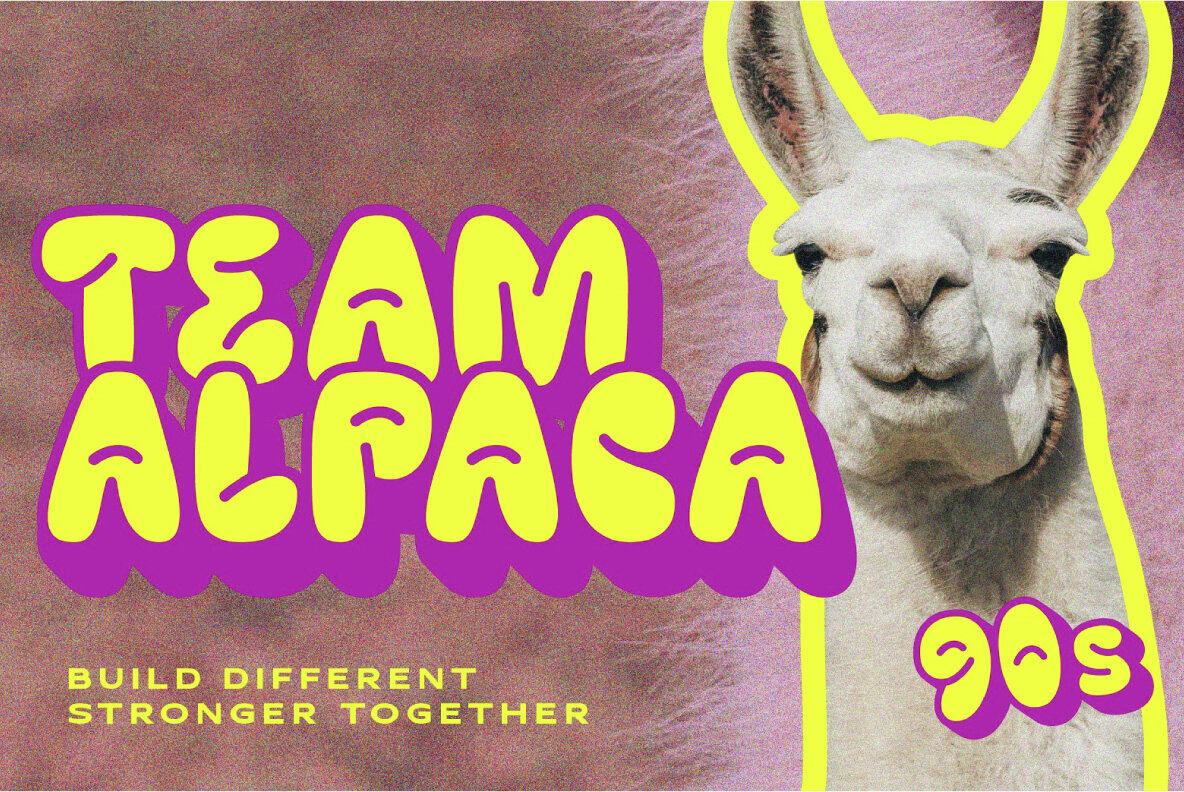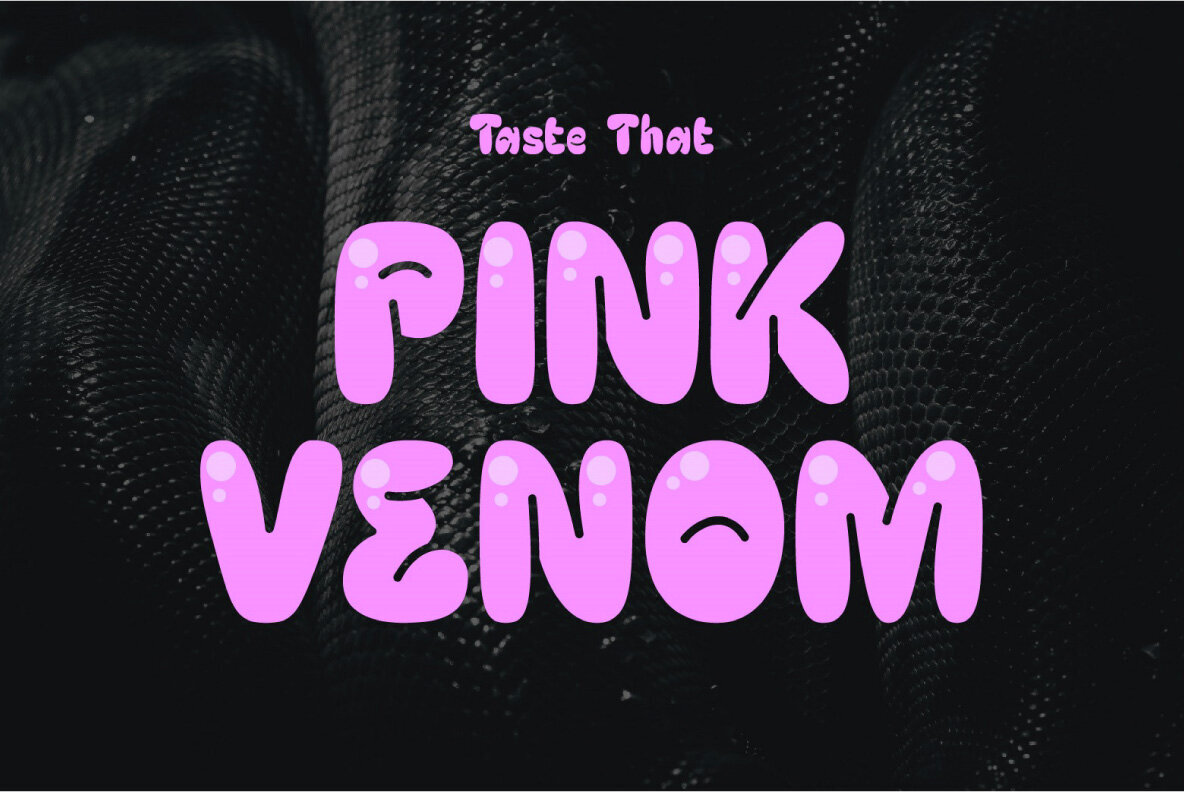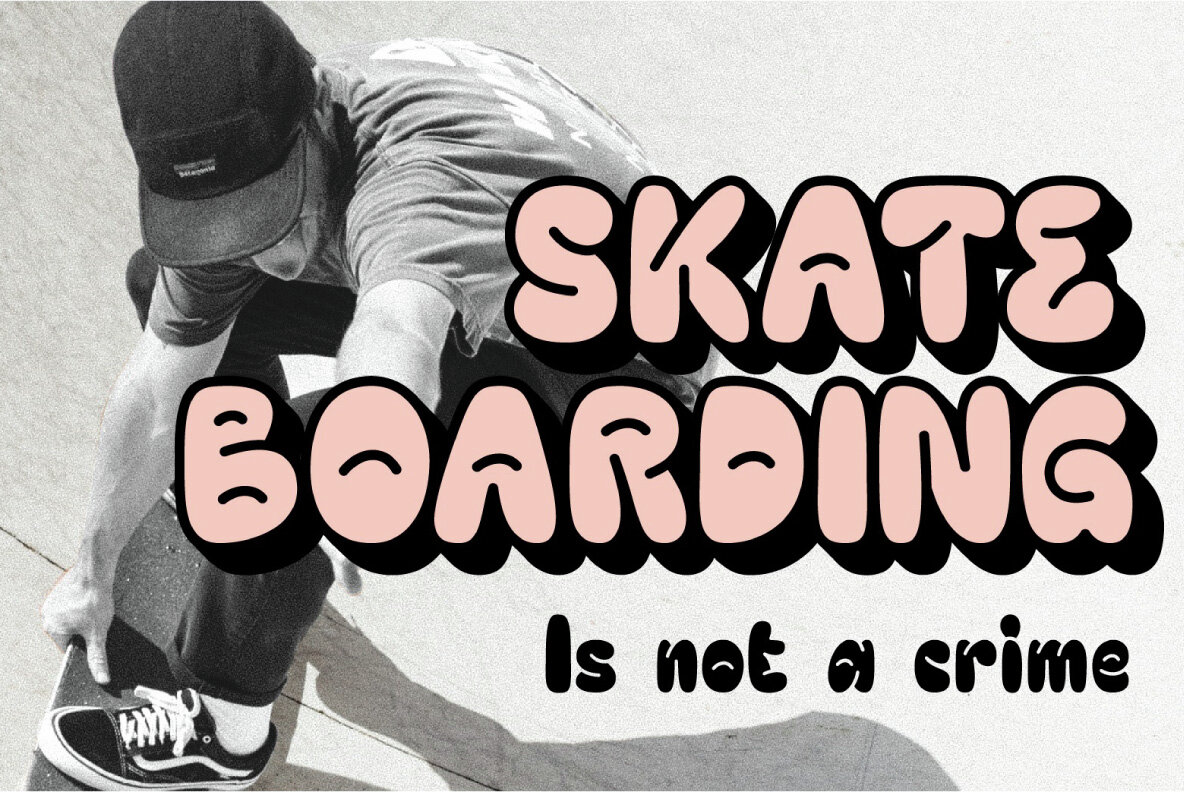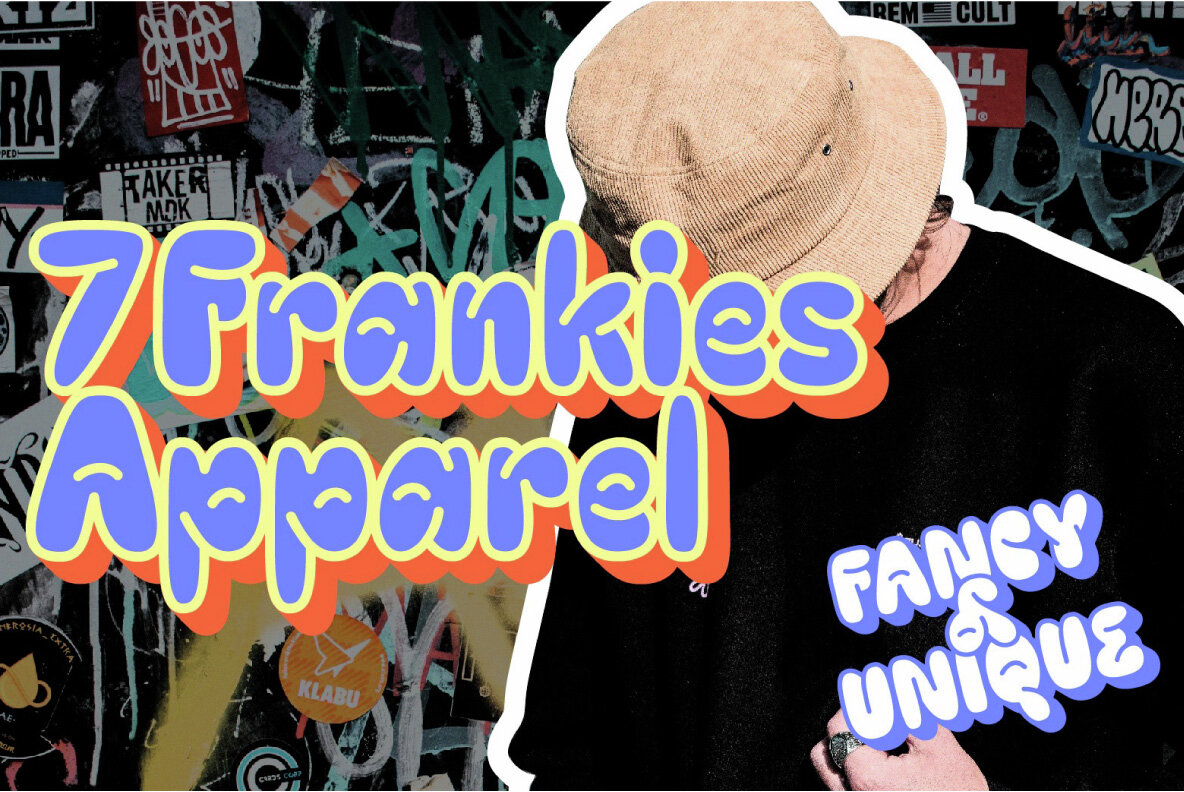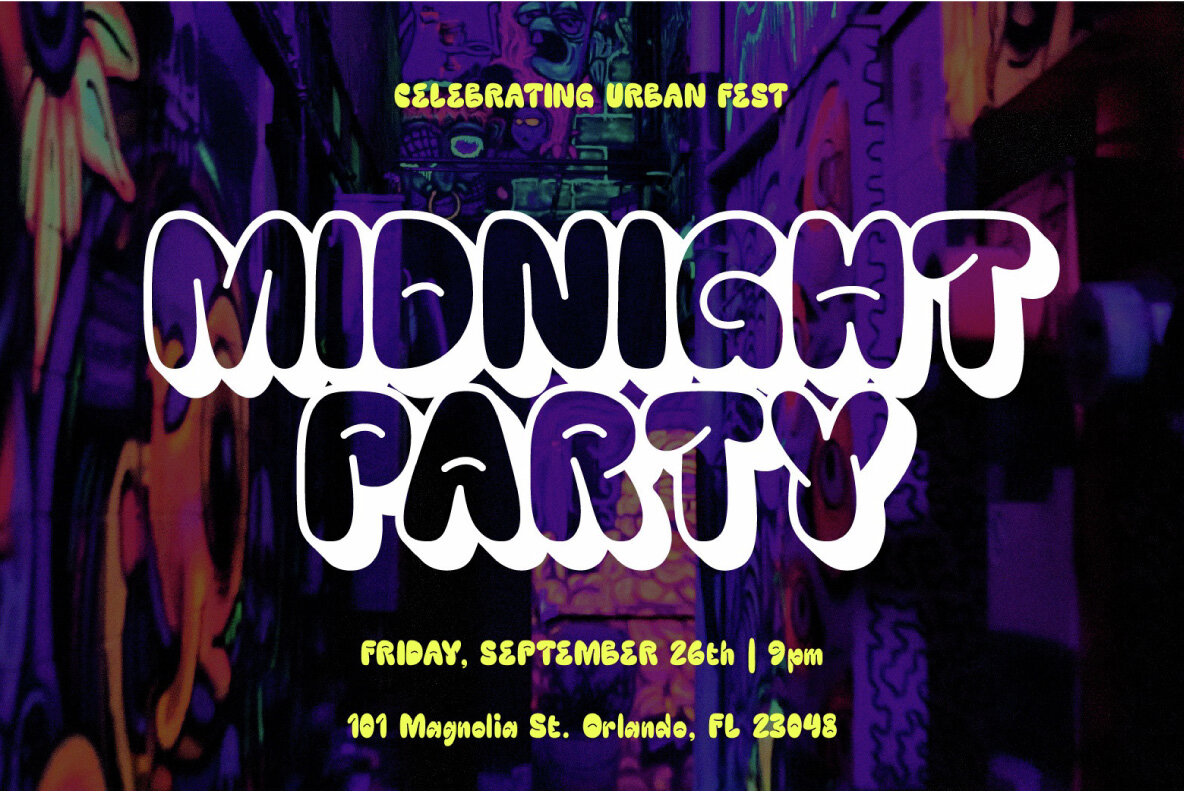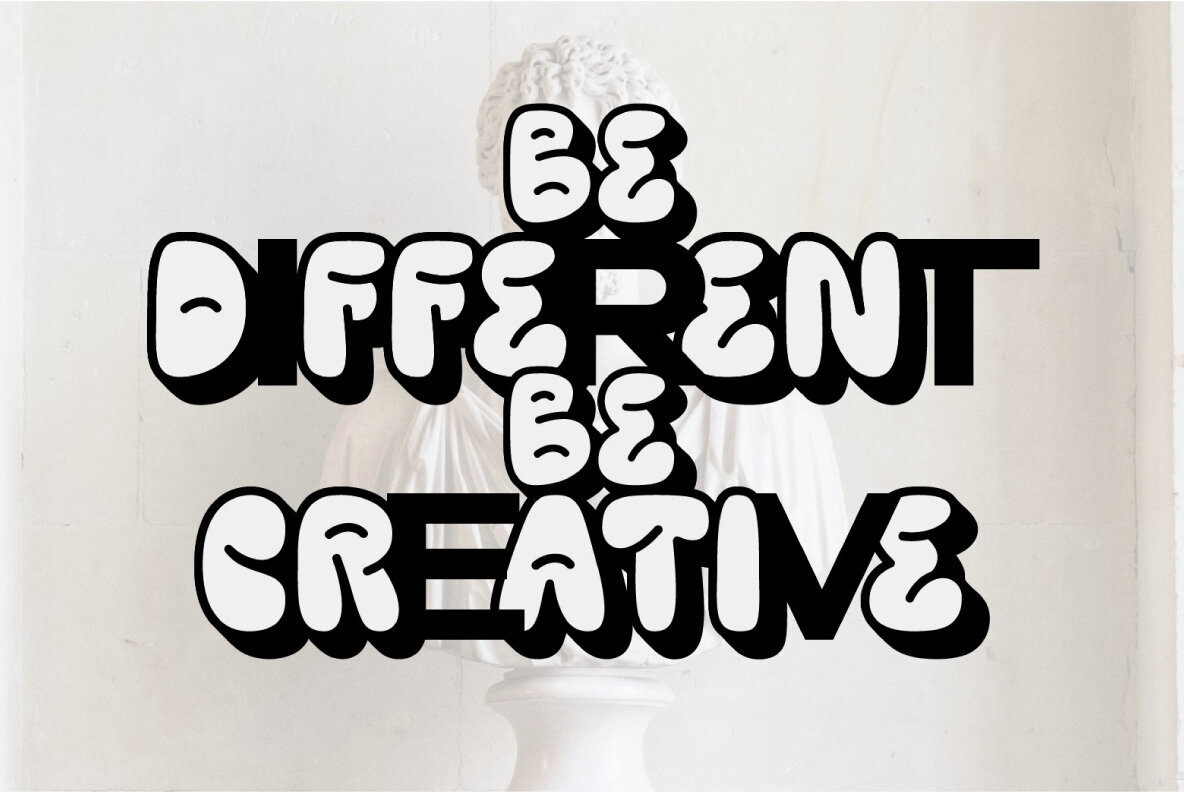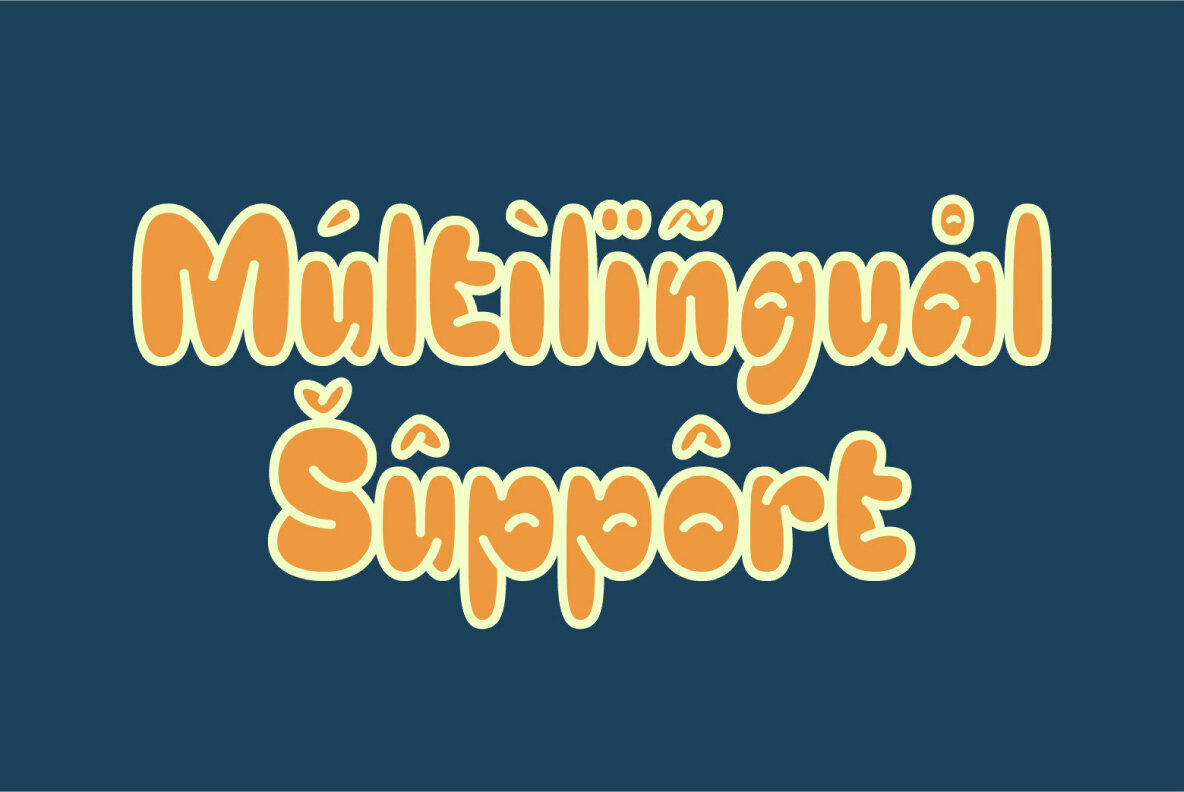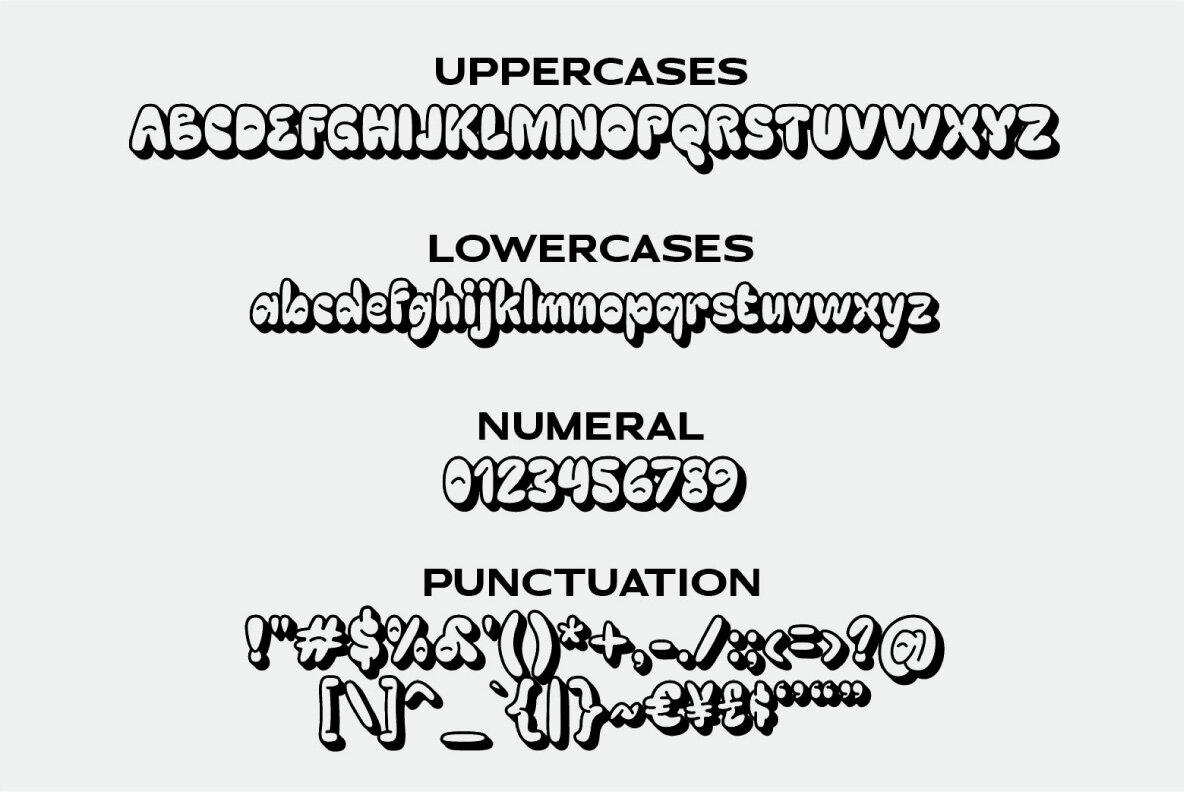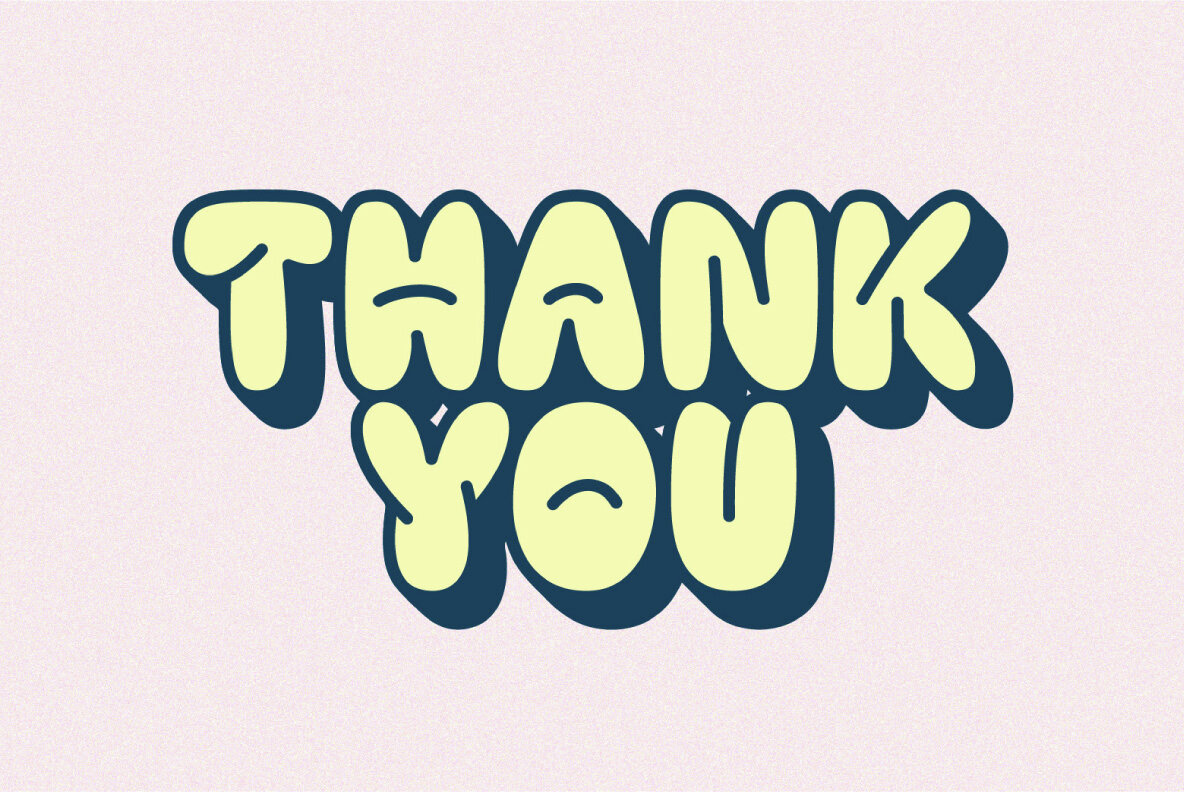
SS Looks Happy Font
Looks Happy Extrude
Looks Happy Fill
Looks Happy Outline
This bold and playful font stands out with its whimsical rounded shapes, making it ideal for children's projects, fun branding, and eye-catching headlines. Perfect for adding a touch of youthful energy and cartoonish charm to your designs.